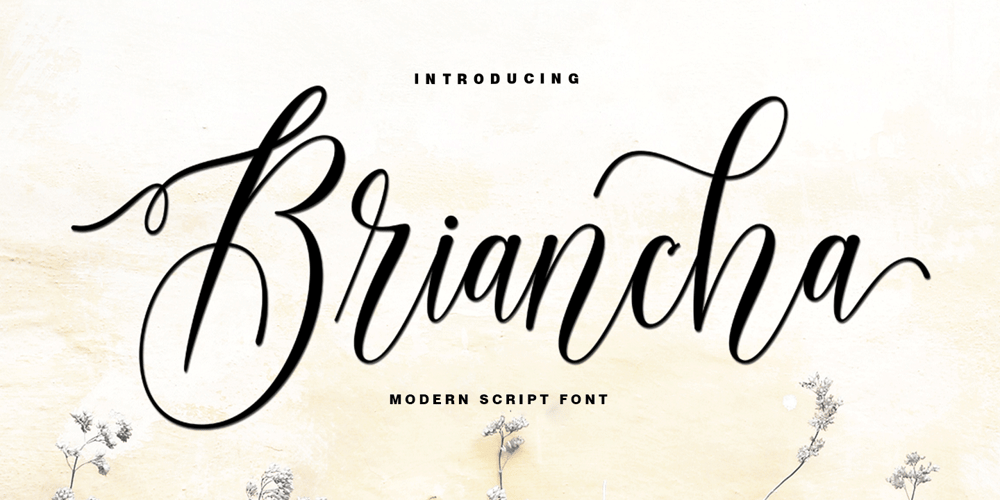
Briancha Font Family was designed by Sidiq Fahmi and published by Rotterlab Studio. Briancha contains 1 styles and family package options. Briancha is a modern calligraphy design, including Regular. This font is casual and beautiful with swash. It can be used for various purposes. such as logos, product packaging, wedding invitations, branding, headlines, signage, labels, signatures, book covers, posters, quotes, and more.Briancha includes a change of the OpenType language style, binding and international support for most Western languages. To activate the OpenType Stylistic alternative, you need a program that supports OpenType features such as Adobe Illustrator CS, Adobe Indesign & CorelDraw X6-X7, Microsoft Word 2010 or newer versions. How to access all alternative characters using Adobe Illustrator:https://www.youtube.com/watch?v=XzwjMkbB-wQBriancha is coded with PUA Unicode, which allows full access to all additional characters without having to design special software. Mac users can use the Font Book, and Windows users can use Character Map to view and copy one of the additional characters to insert into your favorite text editor / application. How to access all alternative characters, using Windows Character Map with Photoshop:https://www.youtube.com/watch?v=Go9vacoYmBwIf you need help or have questions, please let me know. I am happy to help ๐ Thank you & Congratulations on Designing!